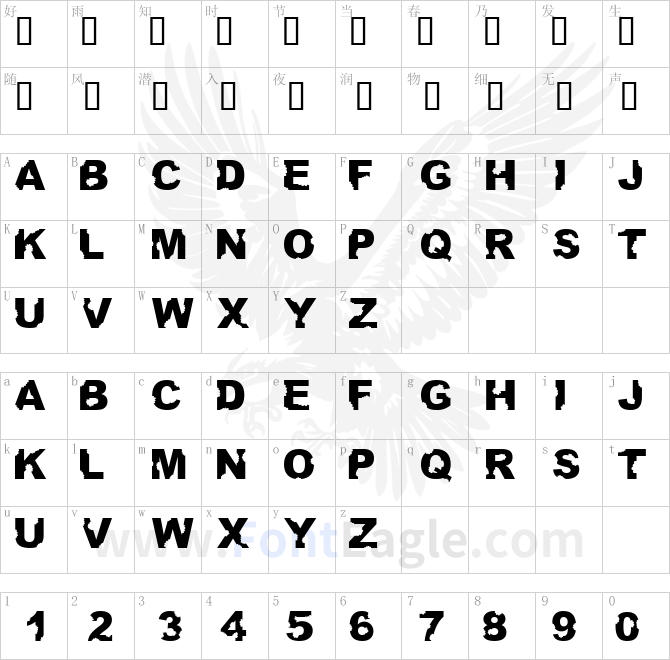
AteUpWithDumbAss is a great font, widely used in graphic design, single-page menu design, poster design and other fields, and is deeply loved by designers.AteUpWithDumbAss download.